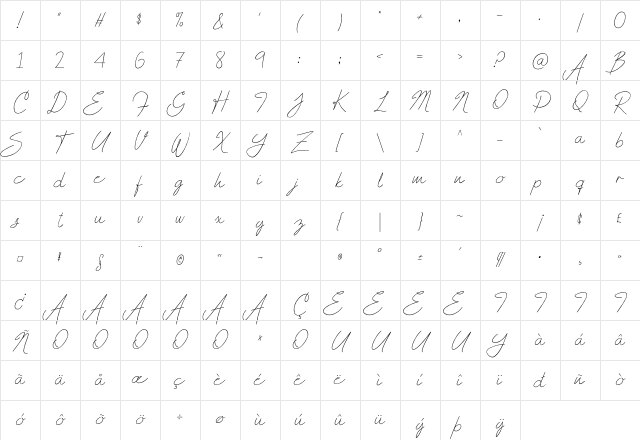
Andrea Script flows with the natural rhythm of handwritten lettering, making it ideal for designs that call for warmth and personal expression. Its slender proportions lend an understated elegance to any composition.
Font Pairing: Combine Andrea Script with a simple geometric sans for maximum contrast - the tension between flowing curves and clean structure is a classic typographic pairing.
Pro Tip: Use Andrea Script for short runs of text - names, titles, or taglines. Extended body copy in script faces tires the eye quickly.